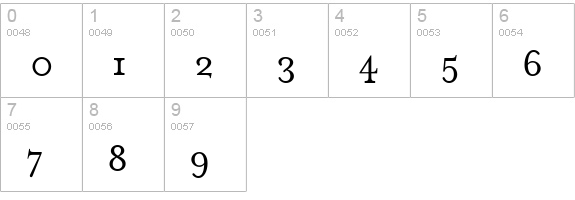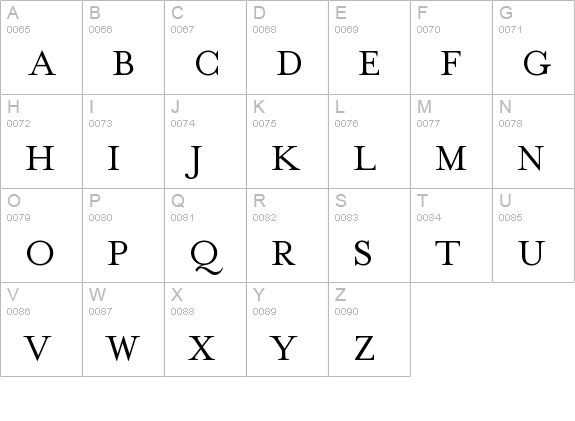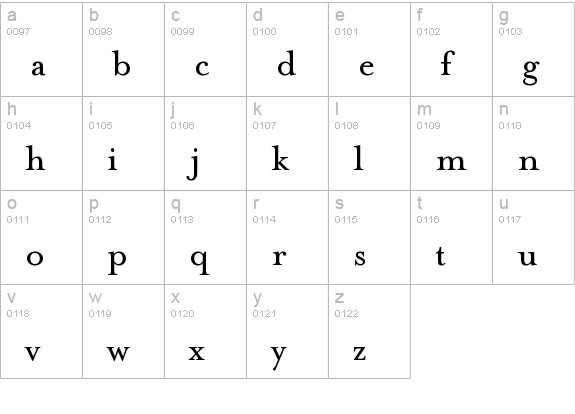
MrsEavesSmartLigRoman Font Details
MrsEavesSmartLigRoman is a timeless and elegant serif font that exudes sophistication and charm. Its classic design, with subtle ligatures and smart features, makes it a perfect choice for projects that require a touch of refinement. This font is versatile and can be used for a wide range of design purposes, from branding to editorial design. What sets MrsEavesSmartLigRoman apart is not just its beauty, but also its accessibility. This font is freely available to download at FontsMarket.com, allowing designers and creatives to easily access and use it in their projects without any restrictions. With MrsEavesSmartLigRoman, you can add a touch of class to your designs effortlessly.